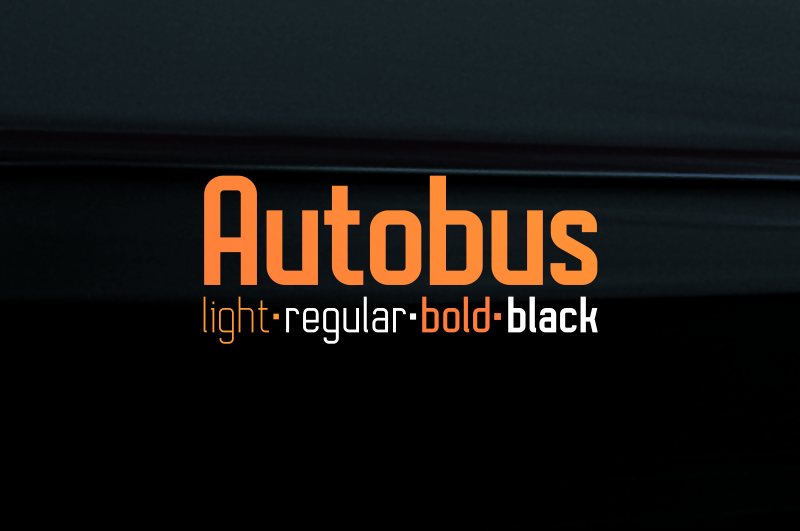
Autobus is a heavy duty sans serif with a strong and technical look. Four weights and multilingual support provide the versatility you need for your design projects. Get the full family here: https://crmrkt.com/MBMNqQ |